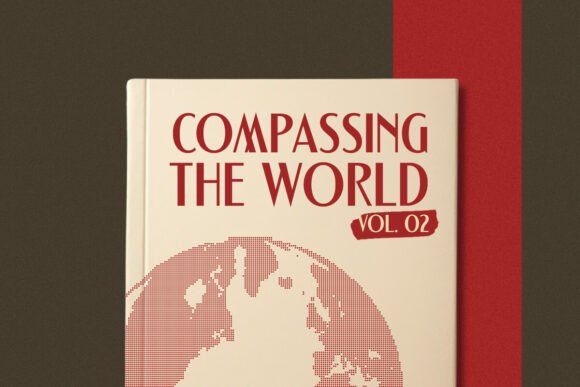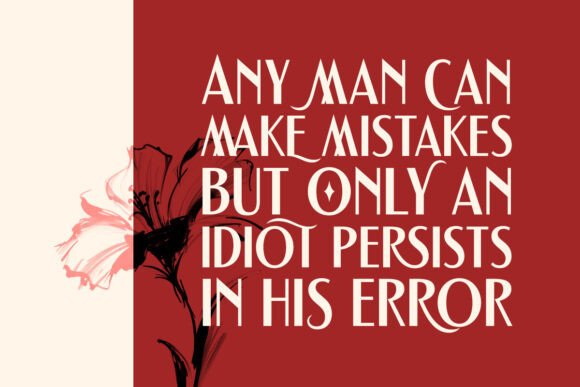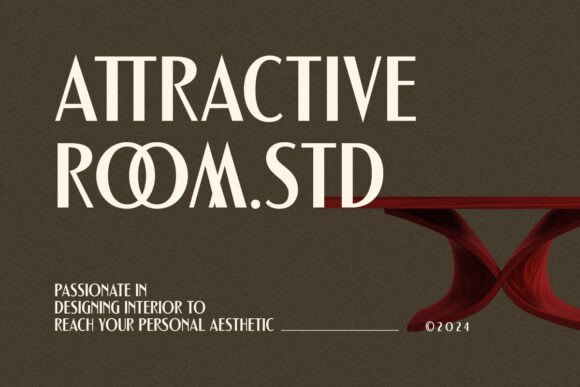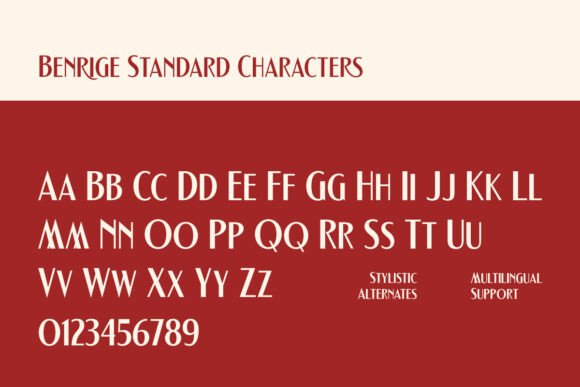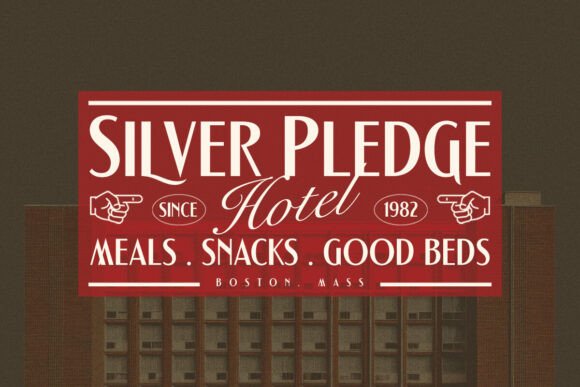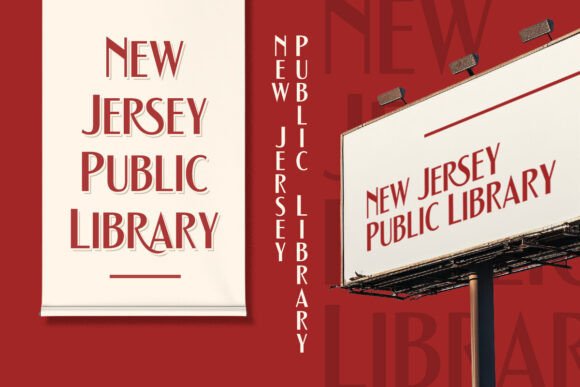
Introducing Benrige Font: A Timeless Fusion of Vintage and Modern Design
In the world of typography, fonts play a crucial role in conveying the tone and personality of a brand or creative project. With the vast array of fonts available, it can be challenging to find the perfect one that captures the essence of your vision. However, if you’re looking for a font that seamlessly blends vintage charm with modern flair, look no further than the Benrige display font. This stylishly bold font is designed to make a statement, making it ideal for eye-catching headlines, branding, and creative projects that demand a touch of elegance.
The Inspiration Behind Benrige Font
The Benrige font draws inspiration from the classic typography of the past, while incorporating modern design elements to create a unique and captivating visual identity. Its creators aimed to craft a font that would evoke a sense of nostalgia, while still feeling fresh and contemporary. The result is a font that exudes sophistication, making it perfect for designers and crafters seeking to add a touch of refinement to their work.
Key Features of Benrige Font
The Benrige display font boasts a range of features that set it apart from other fonts. Some of its key characteristics include:
- Bold and Stylish Characters: The Benrige font features bold, stylish characters that command attention. Its sturdy lines and curves create a sense of confidence and sophistication, making it perfect for headlines and titles.
- Vintage Aesthetic: The font’s vintage inspiration is evident in its classic lines, proportions, and elegant flair. However, it also incorporates modern design elements to ensure it feels fresh and relevant.
- High Versatility: The Benrige font is highly versatile, making it suitable for a wide range of applications, from branding and advertising to packaging and digital design.
- Elegant and Refined: The font’s refined appearance makes it perfect for projects that require a touch of elegance, such as luxury brands, high-end products, or creative projects with a sophisticated tone.
Use Cases for Benrige Font
The Benrige display font is an excellent choice for various design projects, including:
- Branding and Logo Design: The font’s bold, stylish characters make it perfect for creating eye-catching logos and brand identities that demand attention.
- Headlines and Titles: The Benrige font is designed to make a statement, making it ideal for headlines, titles, and other display text that needs to stand out.
- Advertising and Marketing: The font’s vintage aesthetic and modern flair make it an excellent choice for advertising and marketing materials, such as posters, flyers, and brochures.
- Packaging Design: The Benrige font’s elegant appearance makes it perfect for packaging design, particularly for luxury products or high-end brands.
- Digital Design: The font’s versatility extends to digital design, making it suitable for use in websites, social media graphics, and other digital applications.
Tips for Using Benrige Font Effectively
To get the most out of the Benrige display font, consider the following tips:
- Use it Sparingly: Due to its bold and stylish nature, it’s best to use the Benrige font sparingly, such as for headlines or titles, to avoid overwhelming the viewer.
- Pair it with Complementary Fonts: Combine the Benrige font with complementary fonts to create visual interest and add depth to your design.
- Experiment with Colors and Textures: Don’t be afraid to experiment with different colors and textures to add an extra layer of creativity to your design.
The Benrige display font is a timeless fusion of vintage aesthetics and modern sensibilities, making it an excellent choice for designers and crafters seeking to add a touch of elegance to their work. Its bold, stylish characters and high versatility make it perfect for a wide range of applications, from branding and advertising to packaging and digital design. By incorporating the Benrige font into your design projects, you’ll be able to create visually stunning and effective designs that capture the essence of your vision.